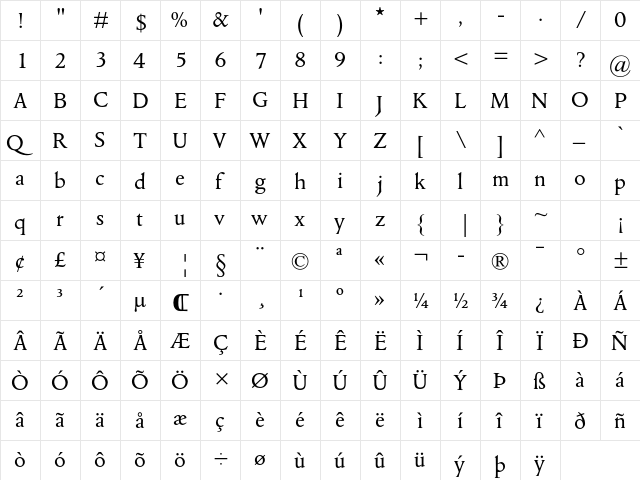
Columbus MT Std Regular
Design Context for Columbus MT Std Typeface
Columbus MT Std takes a measured approach to typography — its balanced proportions and neutral character make it a reliable workhorse for both digital and print work.